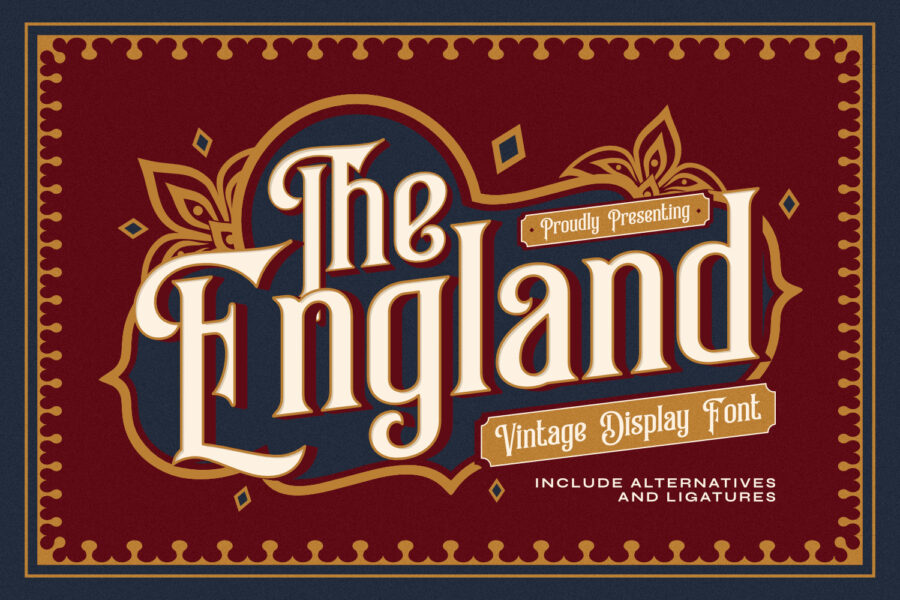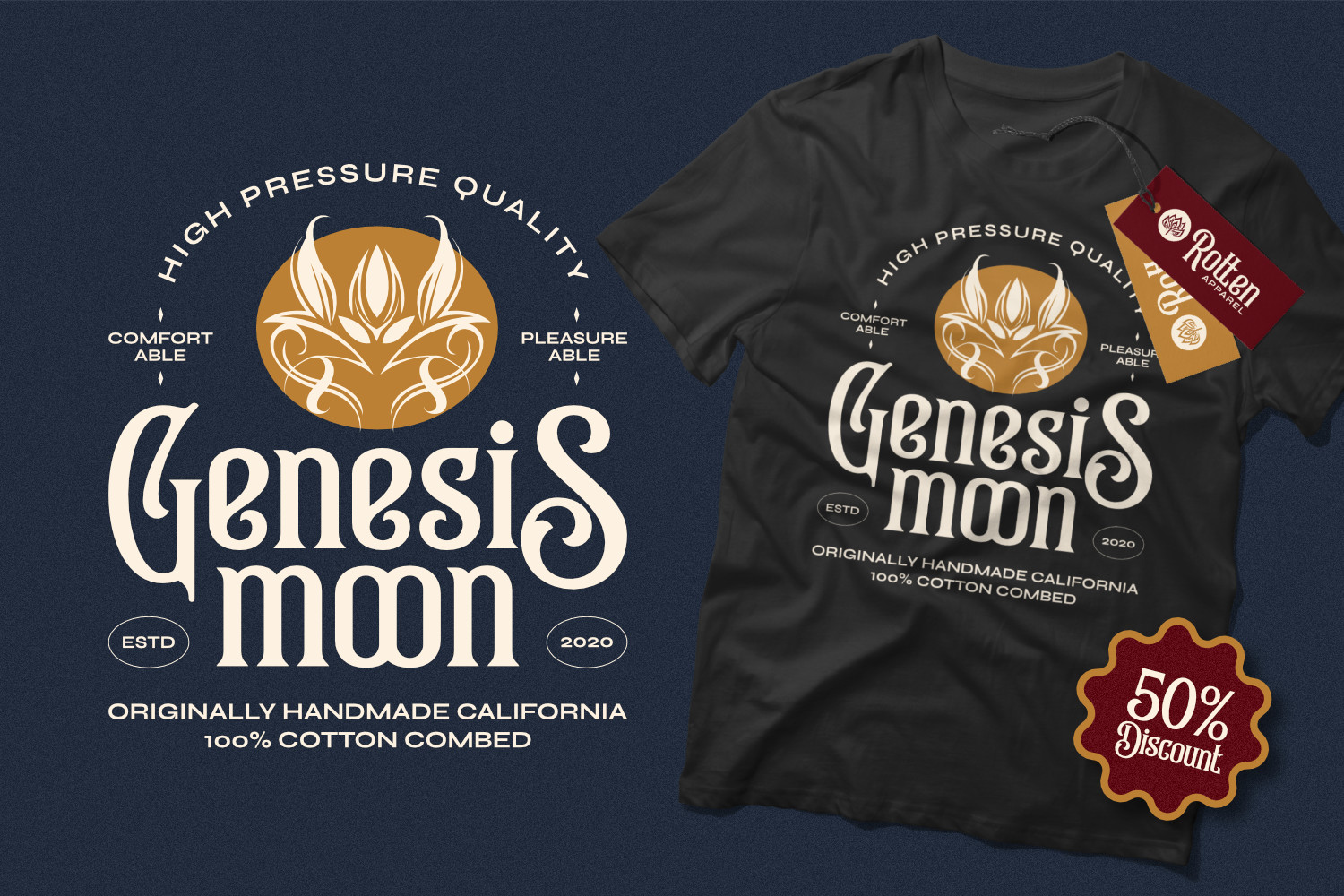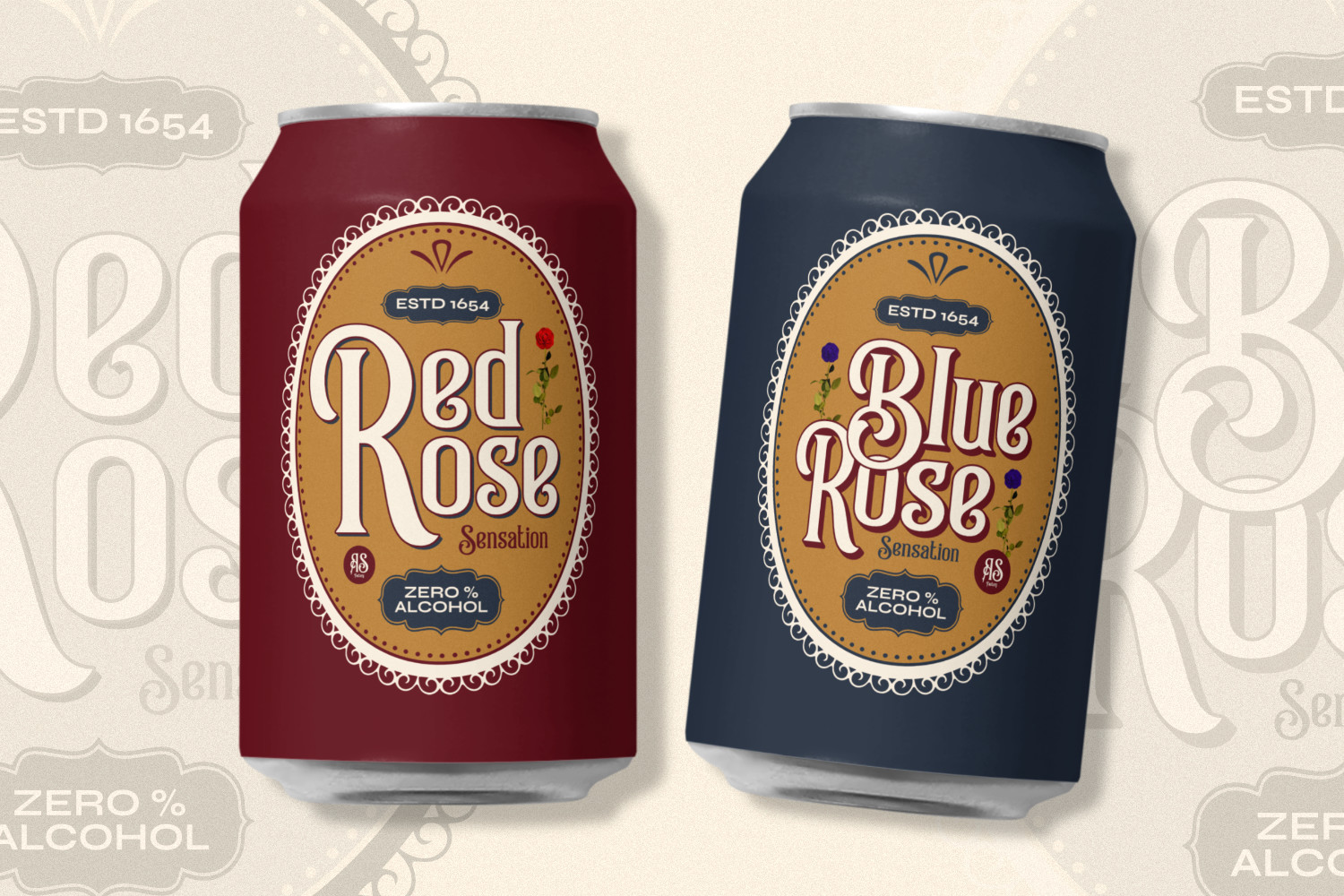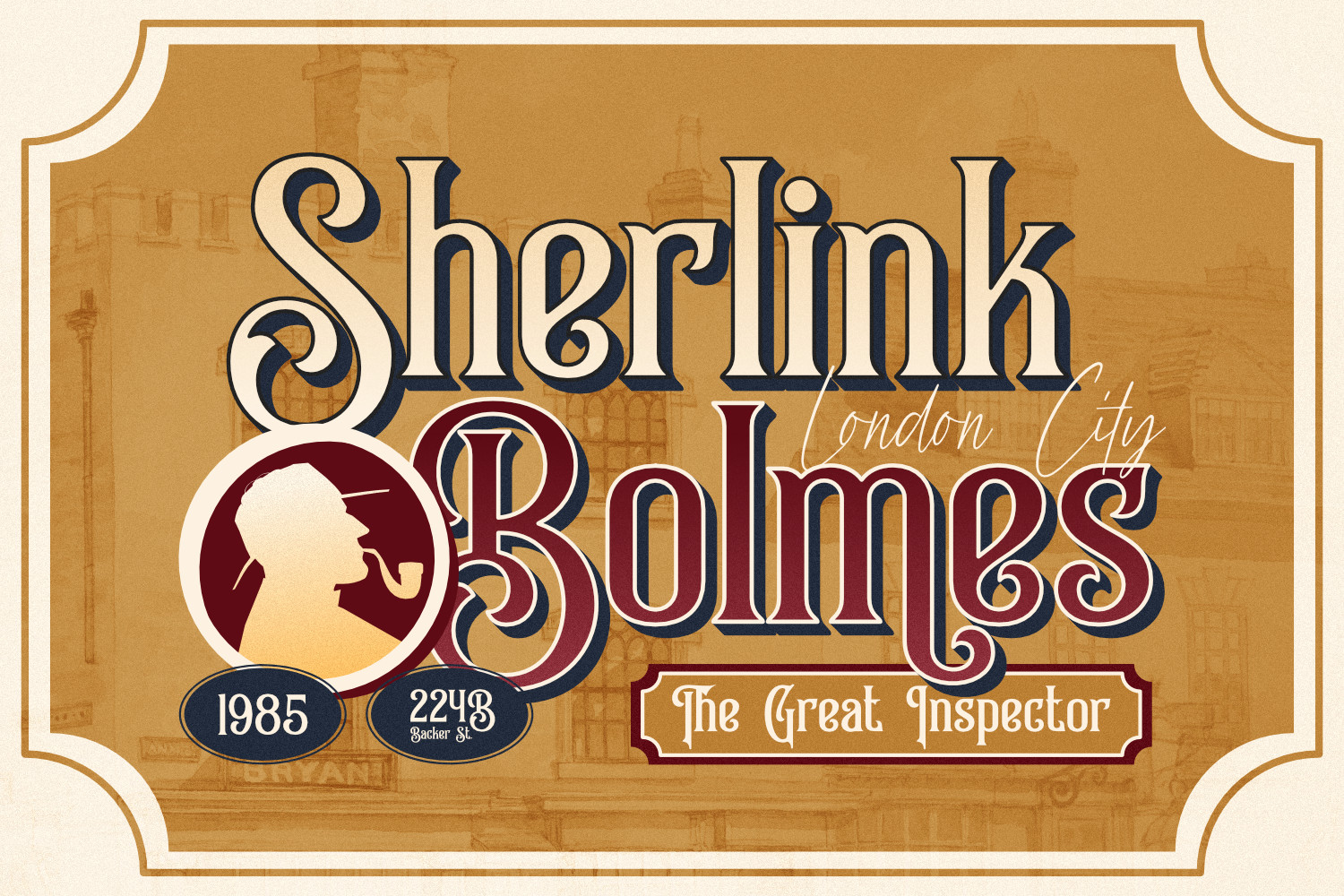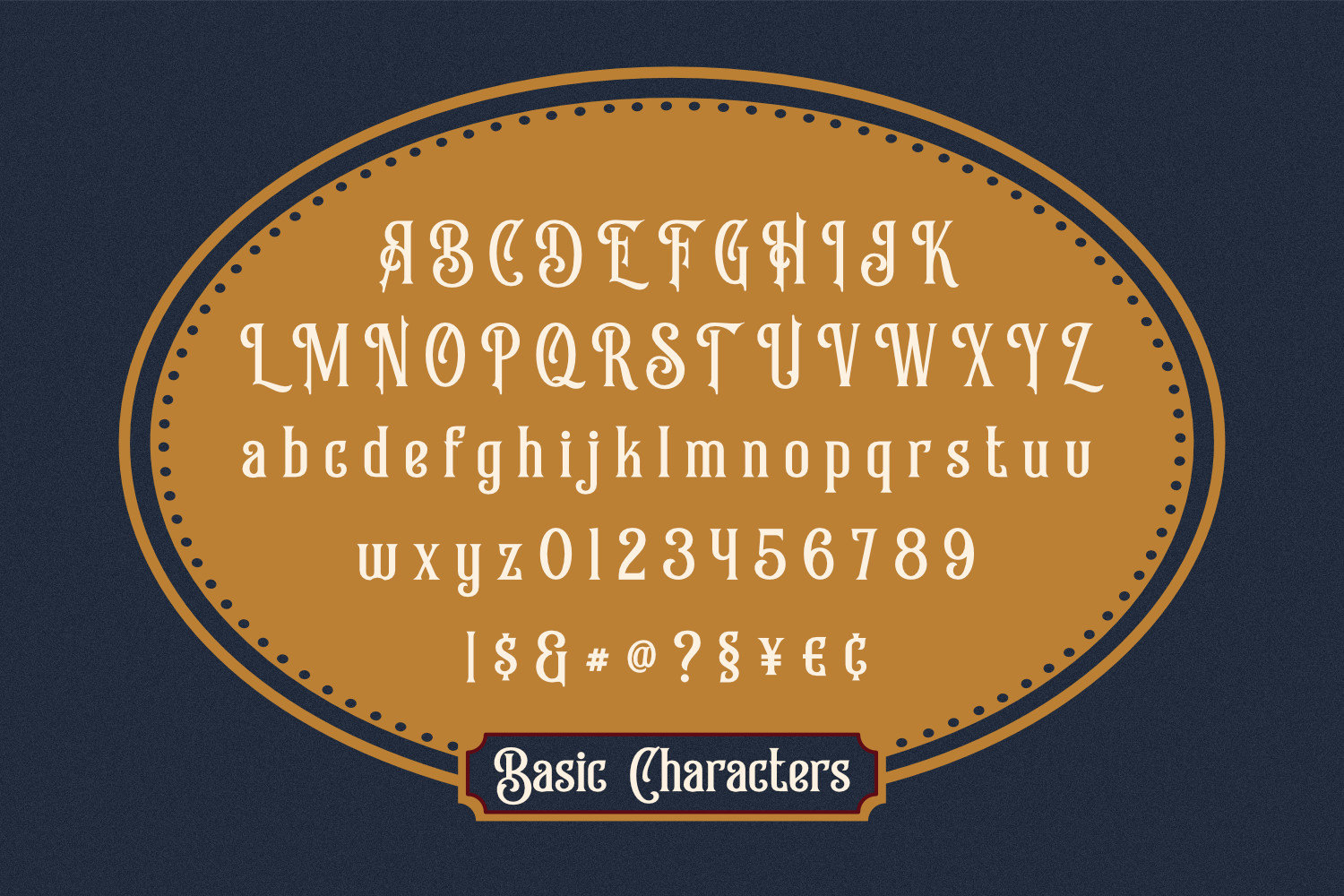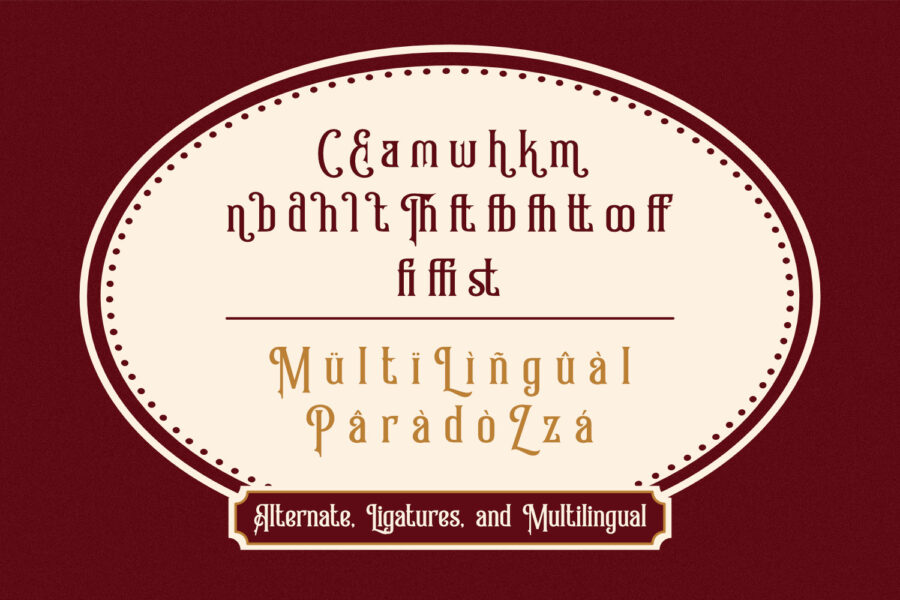
The England is a luxurious vintage display font inspired by classic British typography and ornate letterforms. Its bold serifs, elegant swashes, and high-contrast details make it perfect for sophisticated branding, retro packaging, editorial headers, and vintage-style apparel. With an iconic and charismatic look, this font brings a sense of tradition and prestige to any design it graces.
This font includes uppercase and lowercase characters, numerals, punctuation, multilingual support, ligatures, and alternates for more creative versatility. Whether you’re designing a heritage brand, brewery label, or a nostalgic poster, The England delivers classic character with a touch of royal flair.